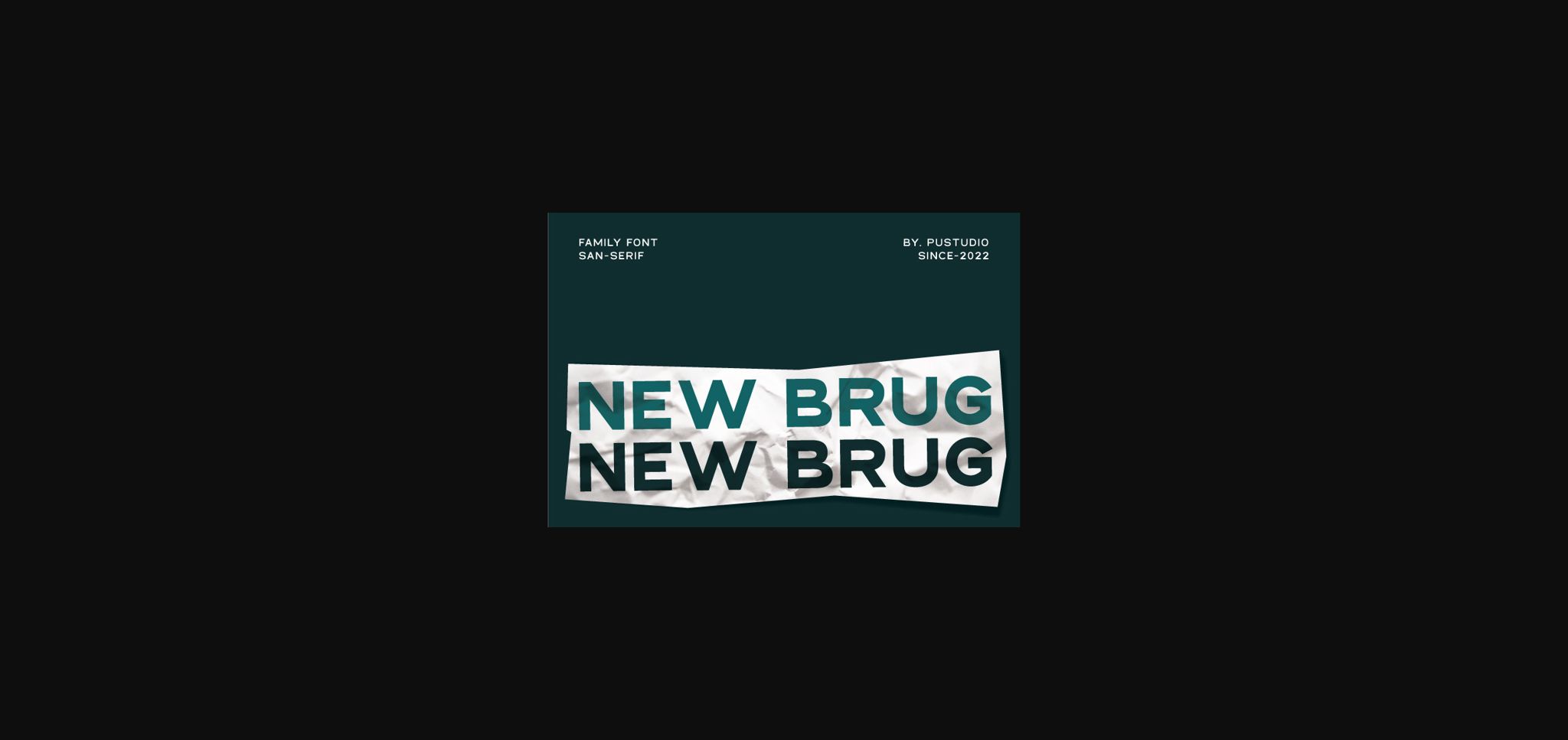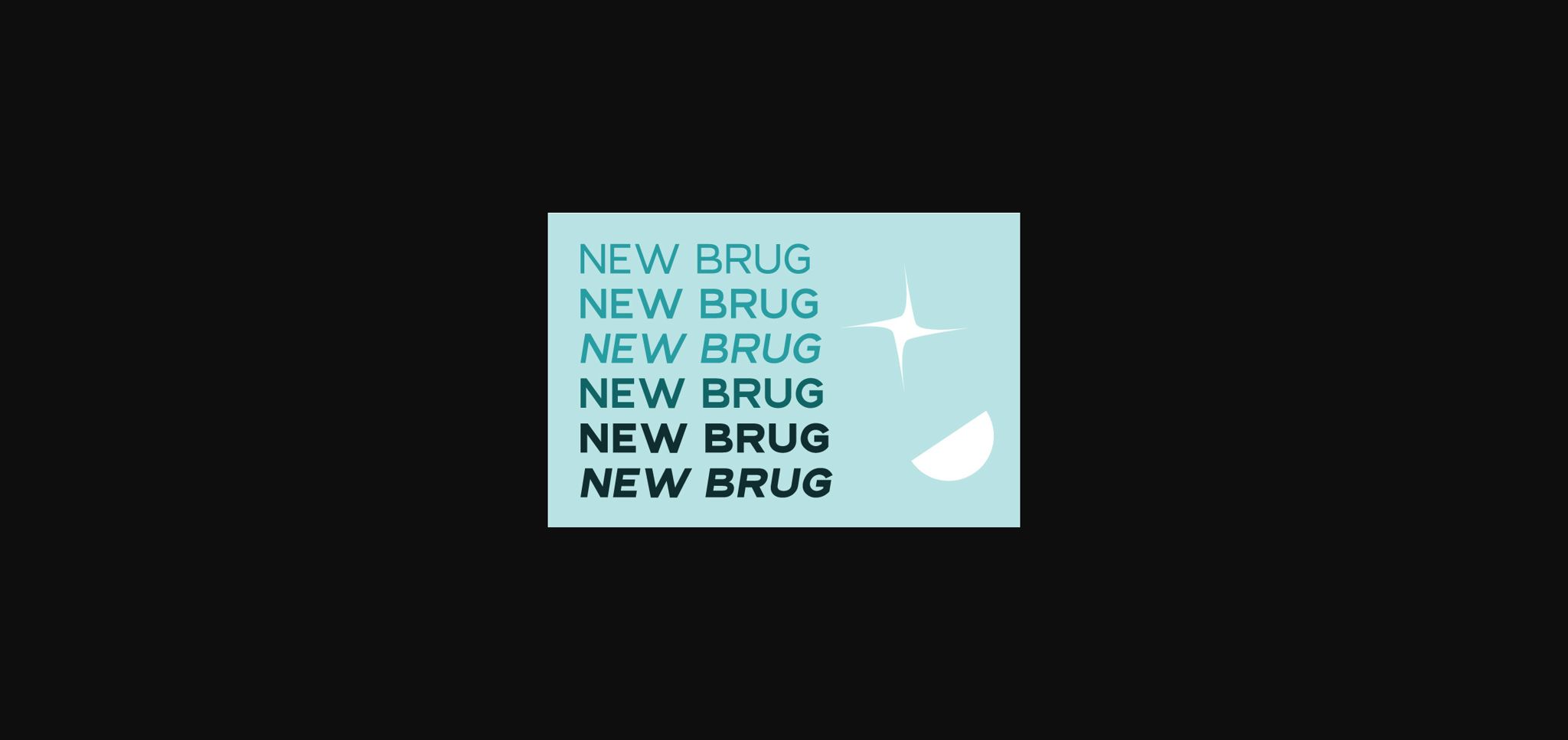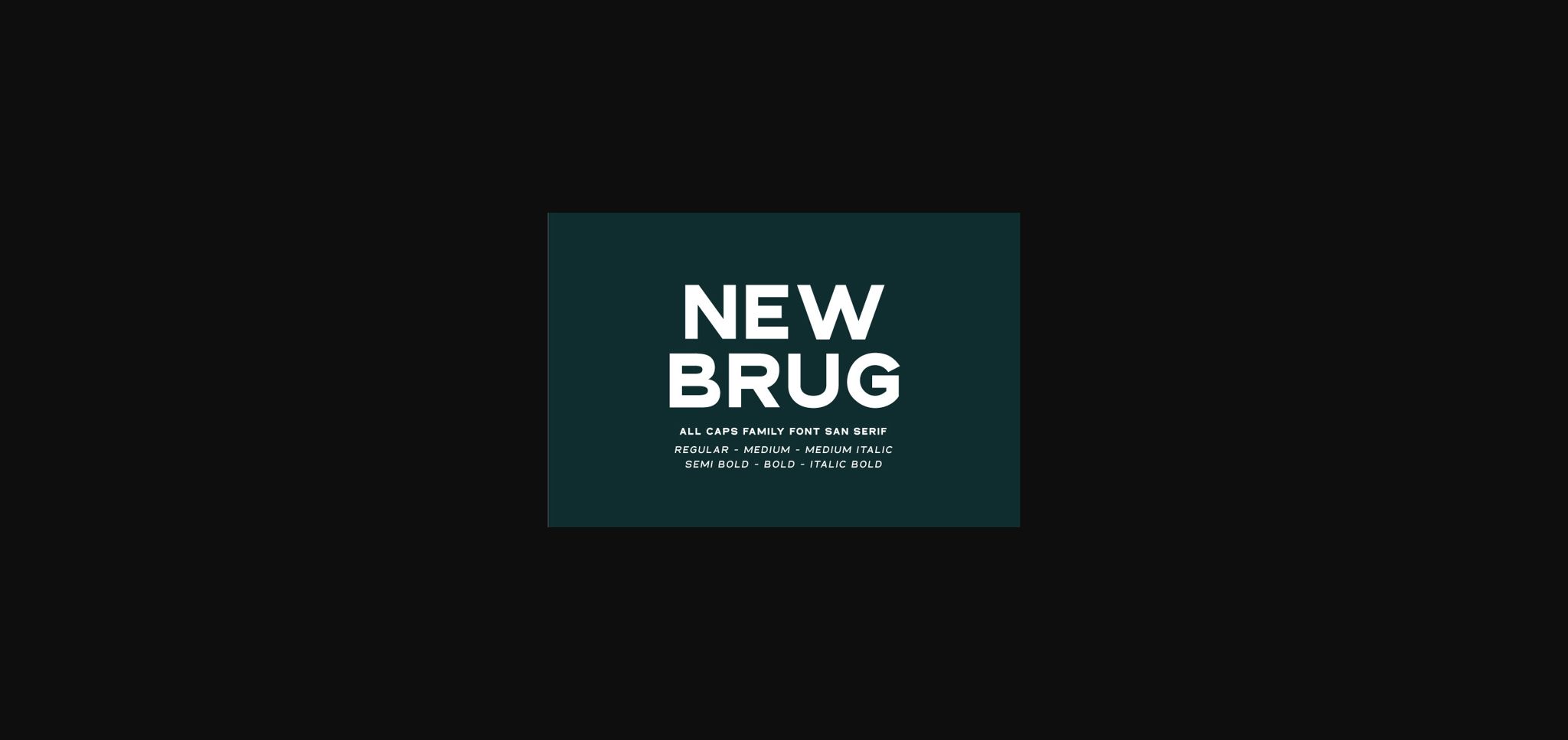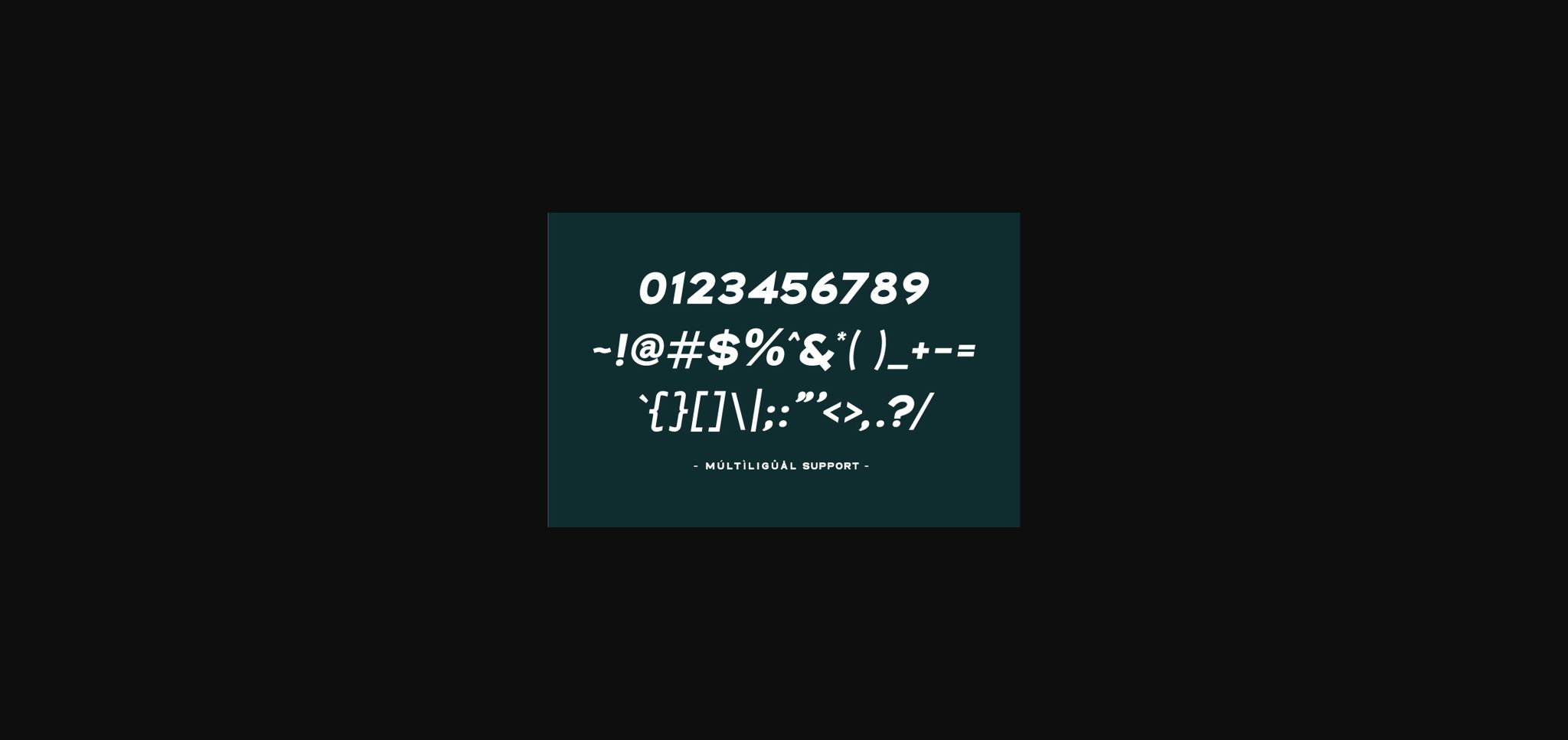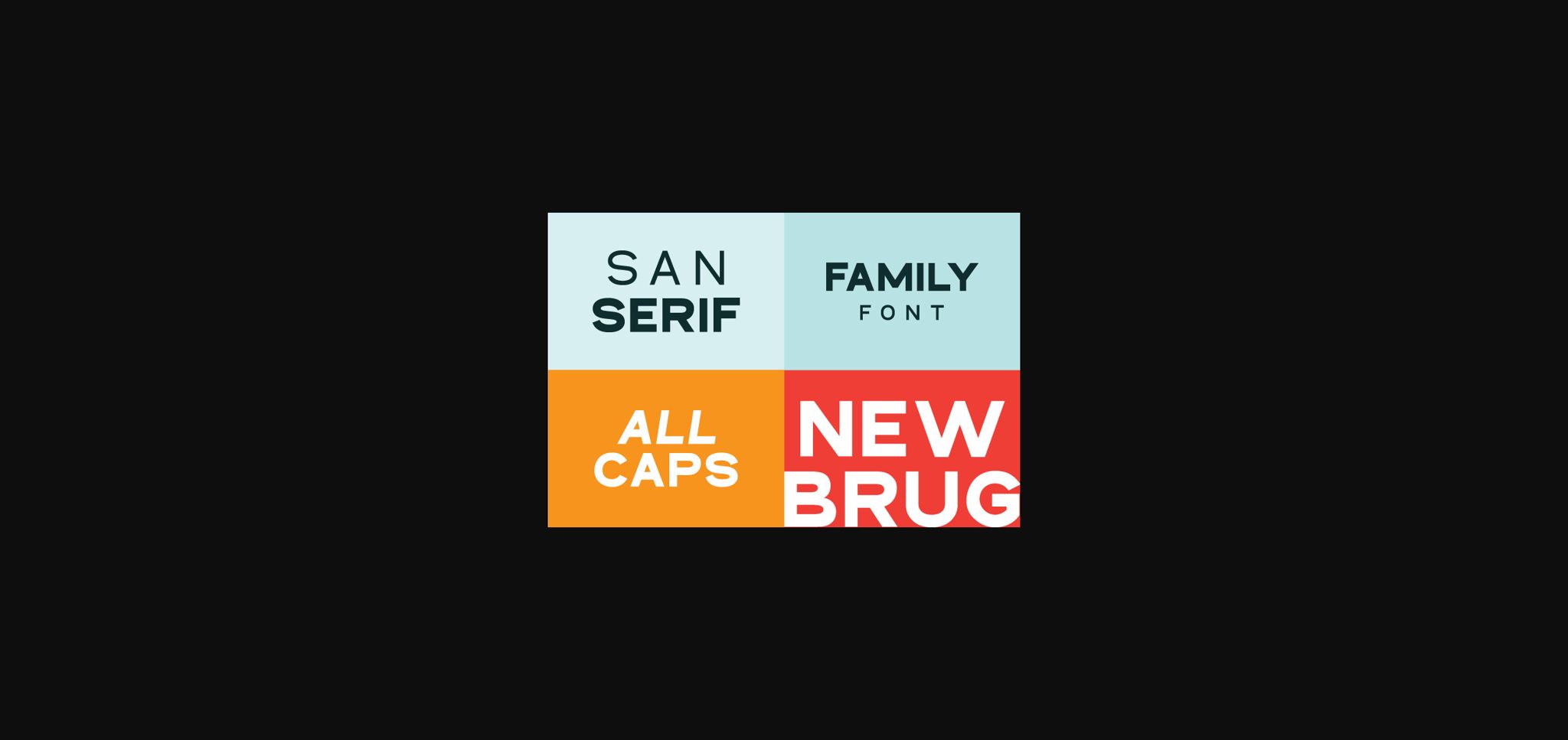
About New Brug Font
New Brug is a daring and simple sans serif font. It can easily be matched to an incredibly large set of projects, so add it to your creative ideas and notice how it makes them stand out!